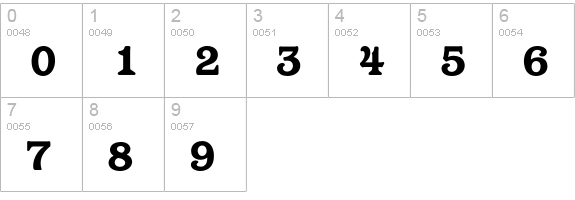
Barcelona* Heavy is a heavy, high-impact variant in the Barcelona* typeface family \xE2\x80\x94 well suited to high-impact headlines, posters, and display advertising.
Barcelona Heavy font is a bold and commanding typeface that exudes strength and modernity. With its thick strokes and sturdy letterforms, this font makes a powerful statement in any design project. Perfect for headlines, titles, and branding materials, Barcelona Heavy demands attention and leaves a lasting impression. Best of all, Barcelona Heavy font is available for free download at FontsMarket.com. This means you can easily add this striking font to your collection without any cost. Don't miss out on the opportunity to enhance your designs with the bold and impactful Barcelona Heavy font - download it now and make a statement with your typography!